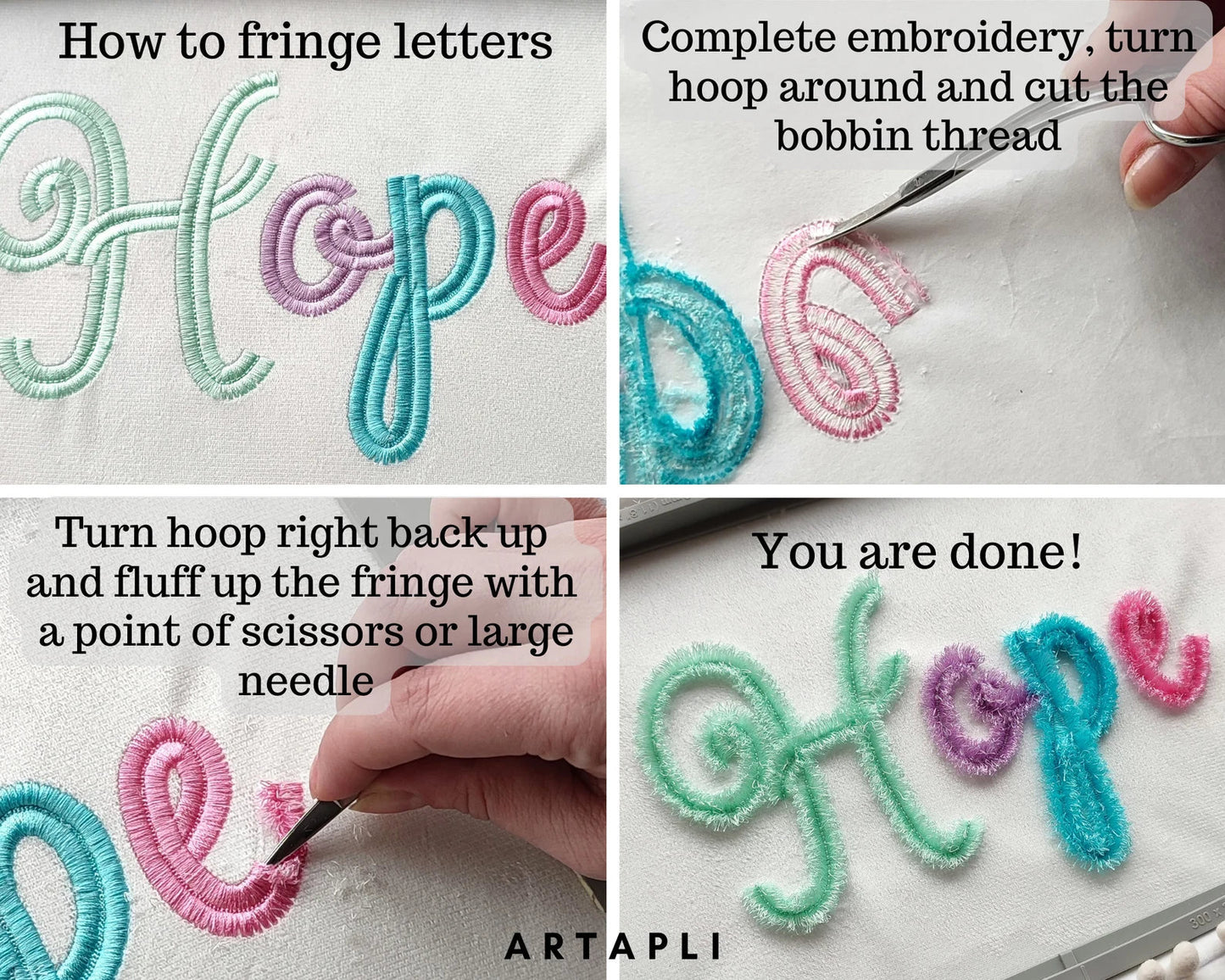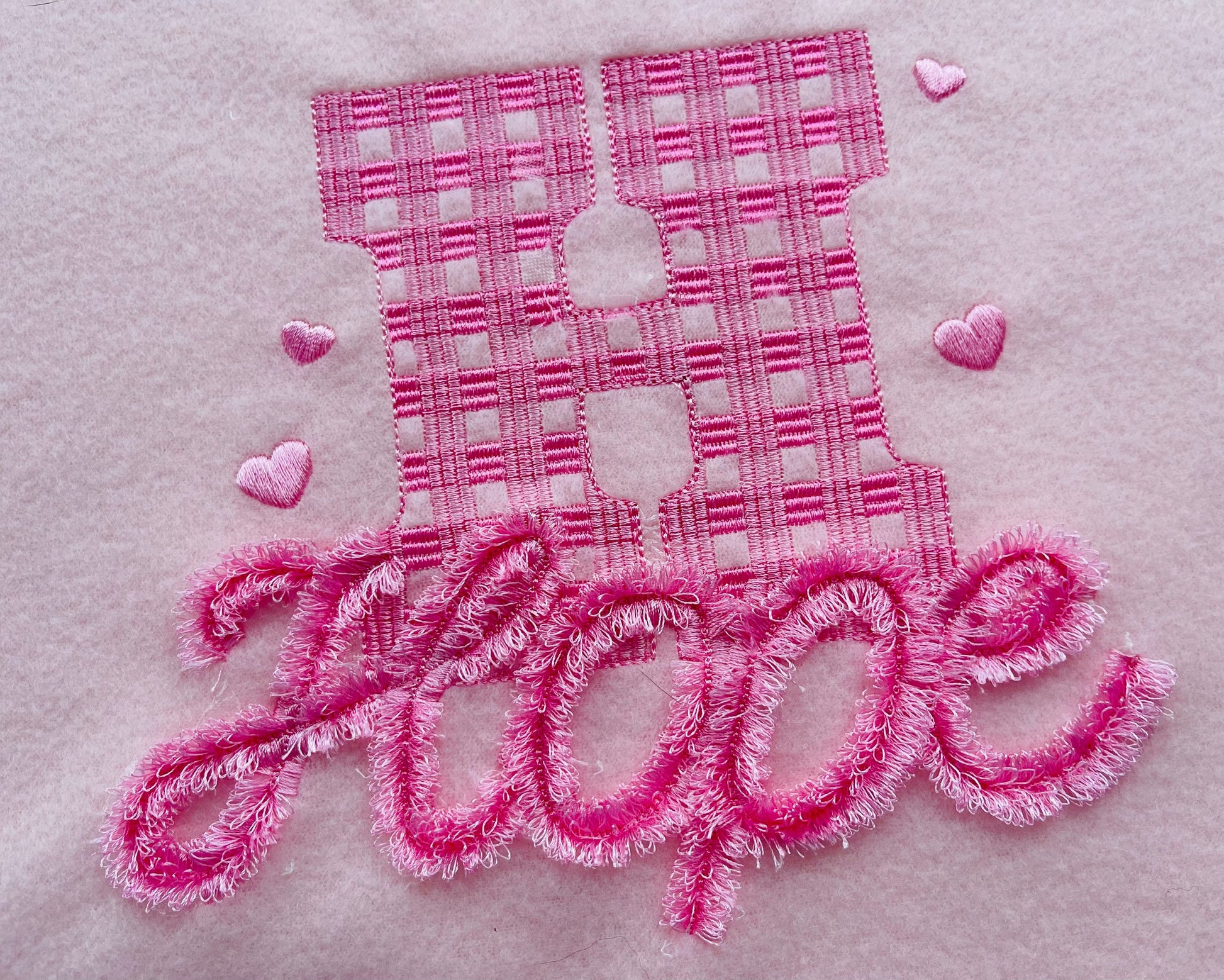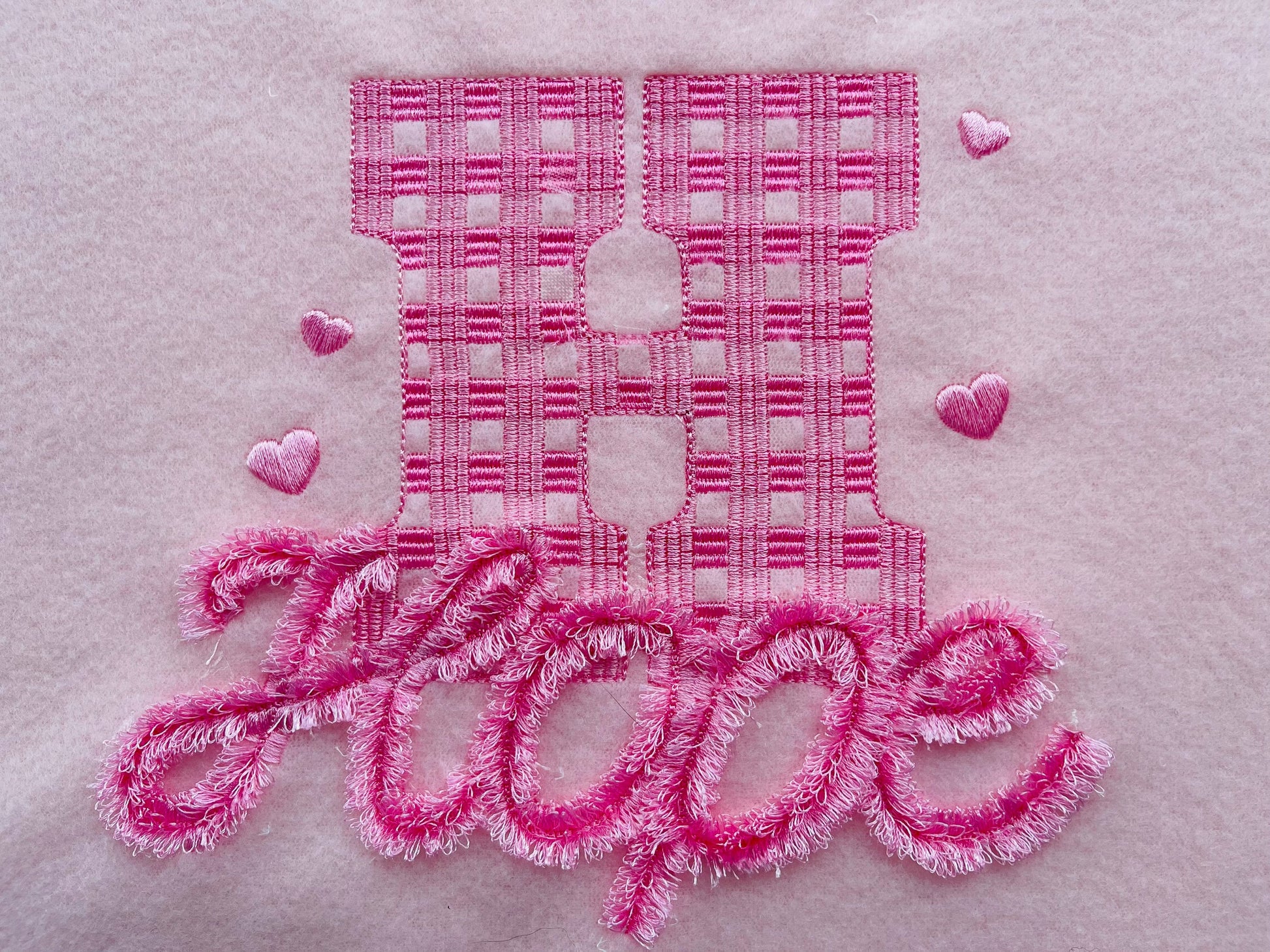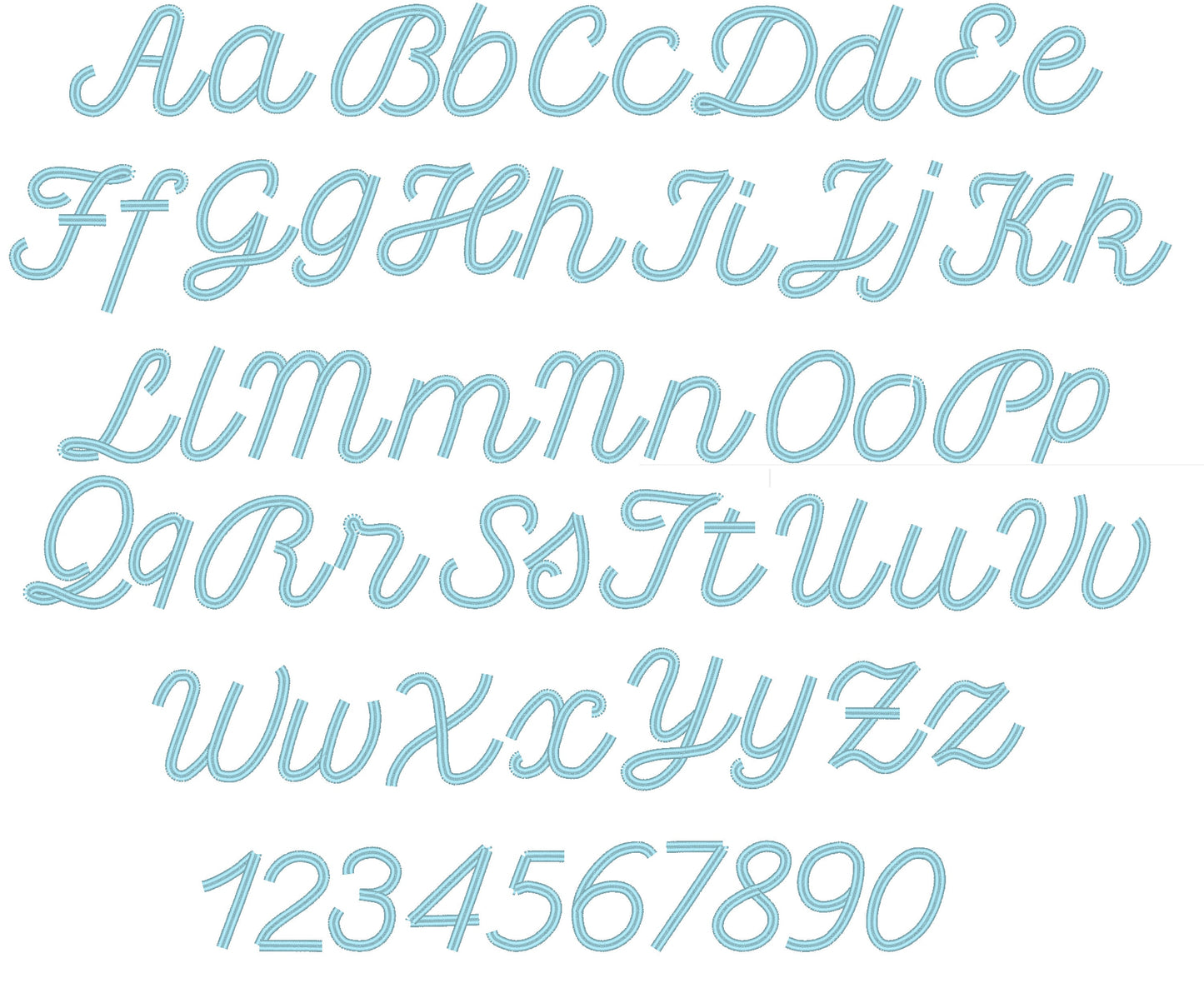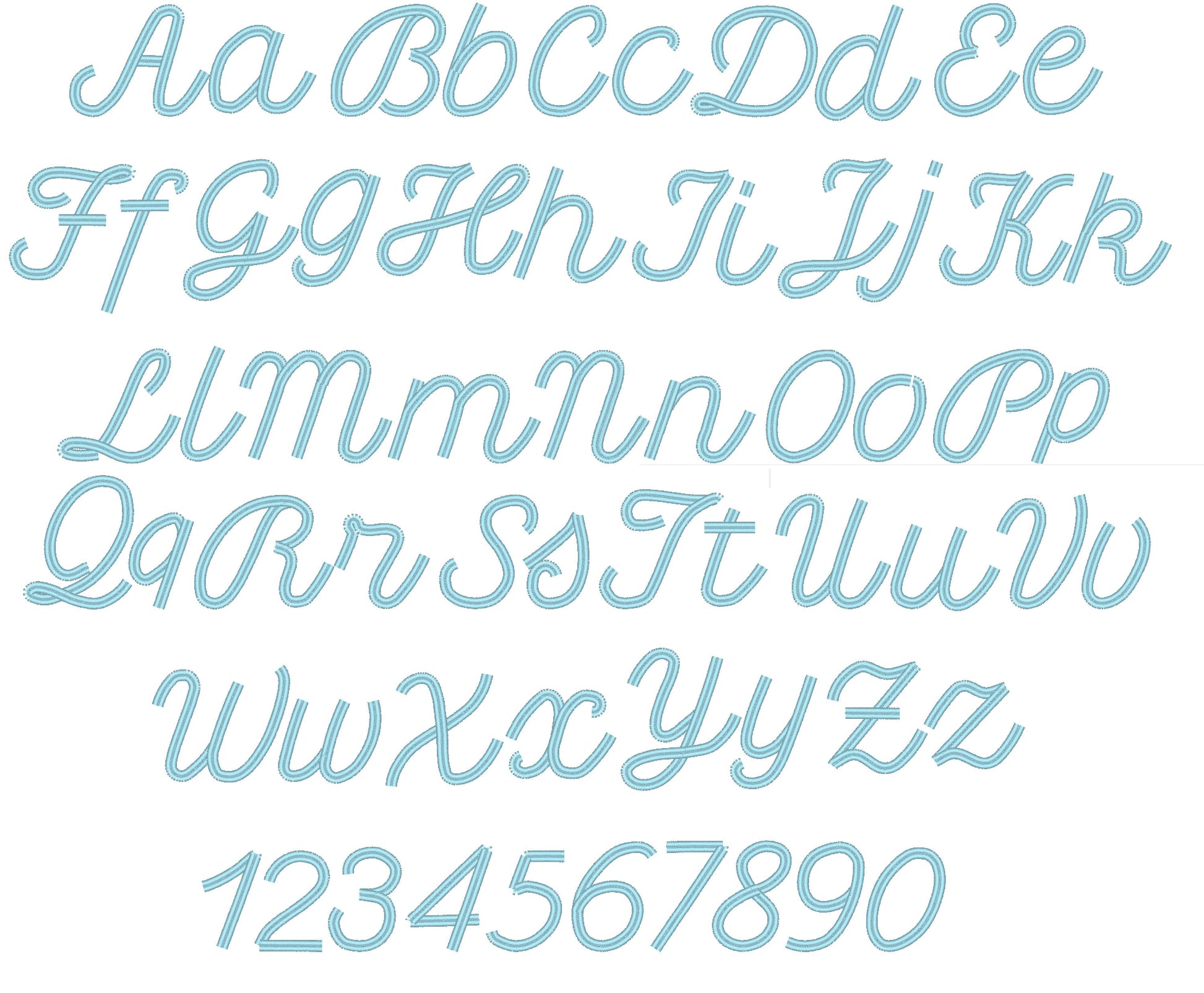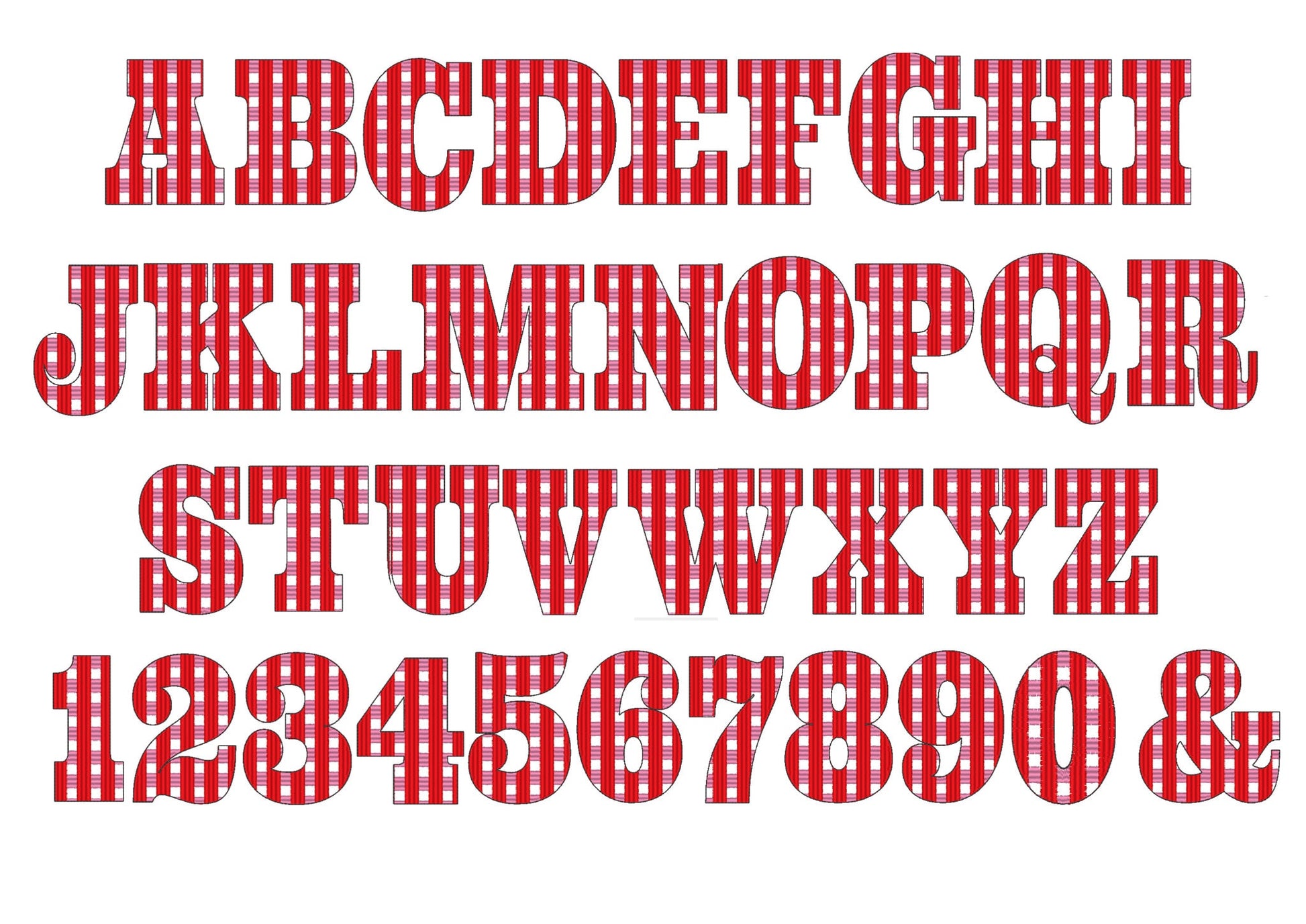
Gingham Block and Fringed Font Set
Gingham & Fringed FONT SET of 2 alphabets machine embroidery designs in assorted sizes chenille girly pretty fluffy and buffalo letters SET of 2 fonts
Fringed Font
Gingham Font
Sizes - Fringed font
Entire alphabet A-Z uppercase and lowercase
2", 2.6", 4", 4.7", 5"
Sizes - Gingham monogram uppercase letters in height
1.2", 1.5", 2", 2.6", 3.3", 4.4", 5.6"